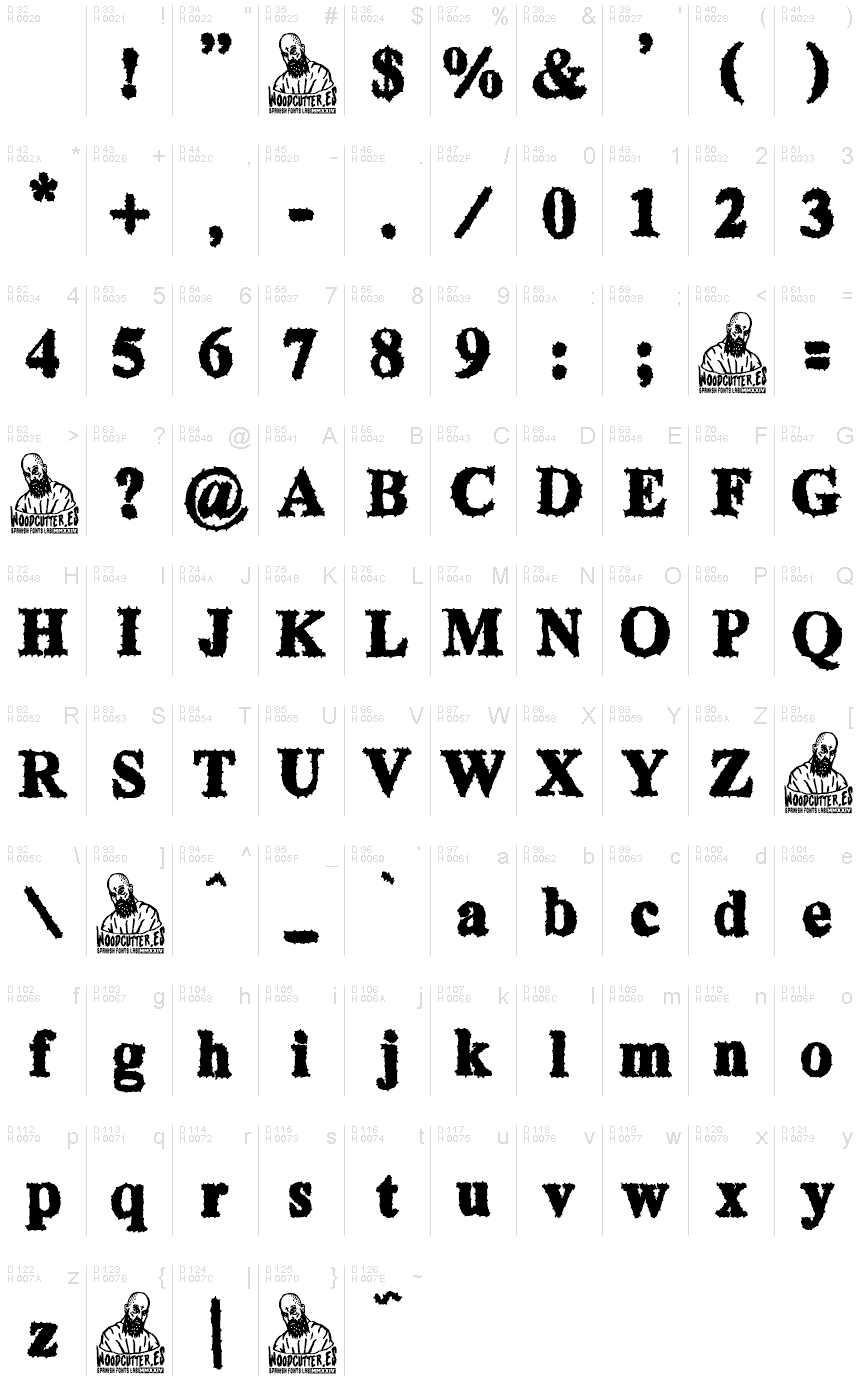
Fake Godness
Fake Godness font from Woodcutter is an edgy and bold display font with a unique eroded style. Its characters have a rough and distressed look that's both vintage-inspired and rebellious. Grungy and textured, it creates a visual that evokes chaos, fragmentation, or decay.
Use Fake Godness for album covers, tattoos, posters, flyers, titles in books or magazines, social media posts, merchandise design for bands or artists aiming for an alternative look. It's also perfect for edgy fashion branding or product packaging that needs a kick of defiant energy.